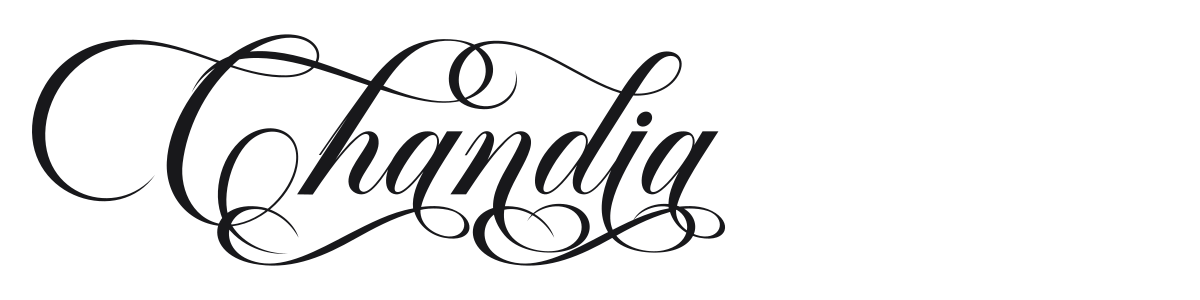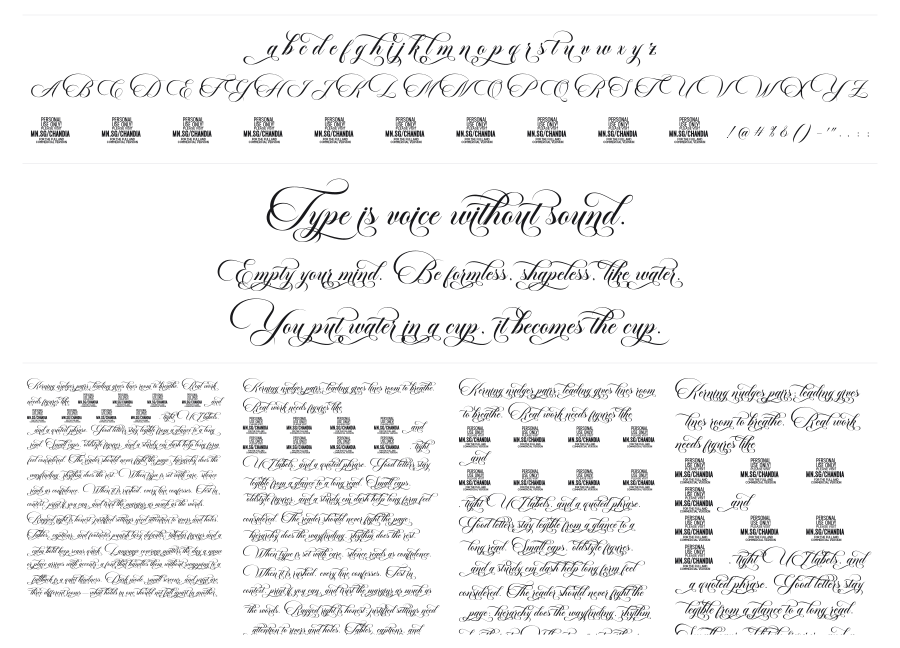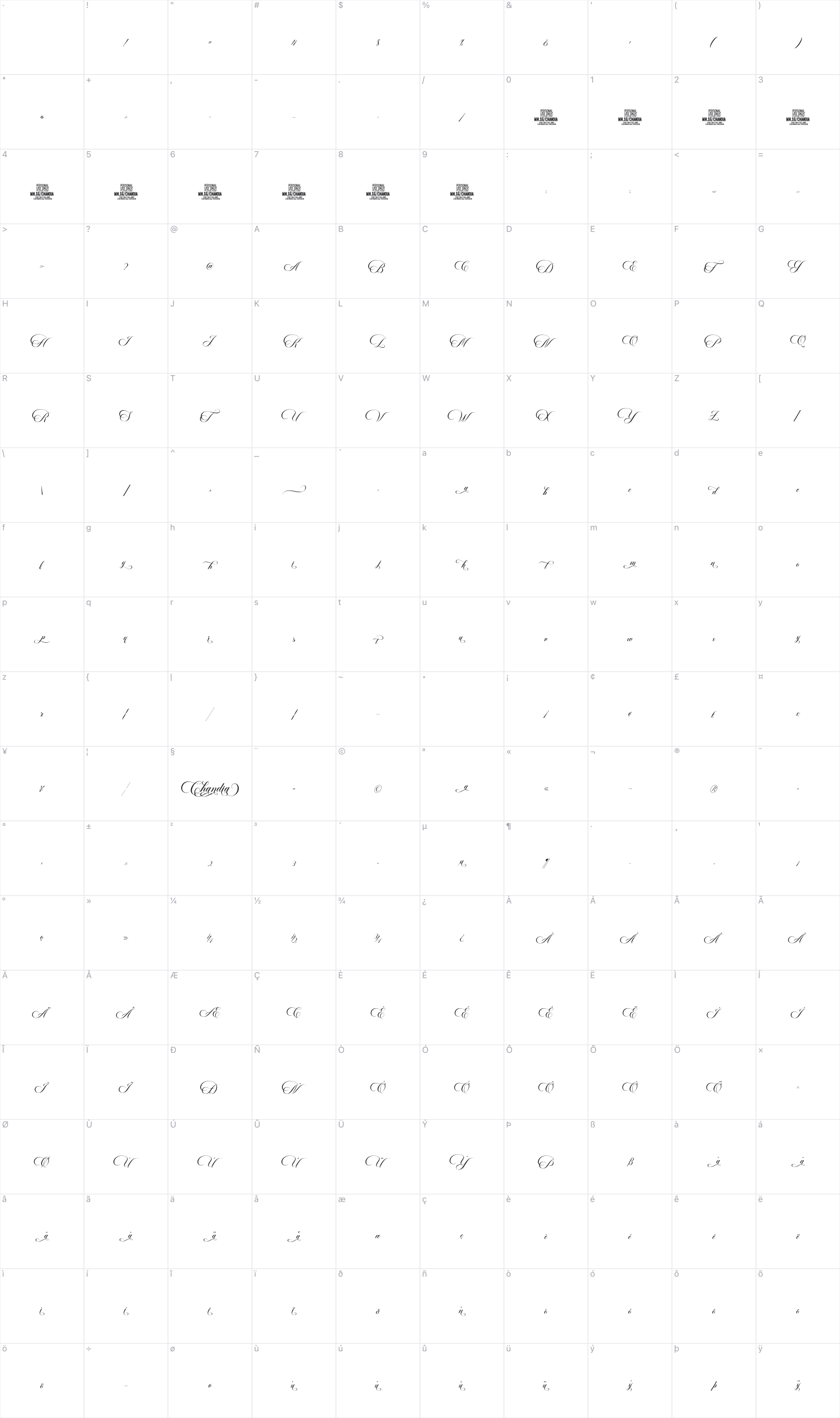
Chandia
Chandia is a dramatic formal script drawn with the precision of copperplate engraving and the warmth of a practiced calligraphic hand. Sweeping swash tails, ornamental loops, and high stroke contrast give it a romantic intensity that suits wedding stationery, luxury branding, and editorial headlines equally well. Mans Greback built in over 100 decorative alternates and OpenType swash triggers, so the level of flourish is entirely under the designer's control.